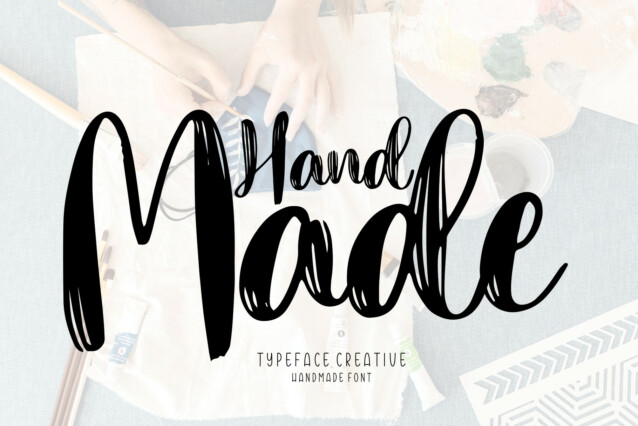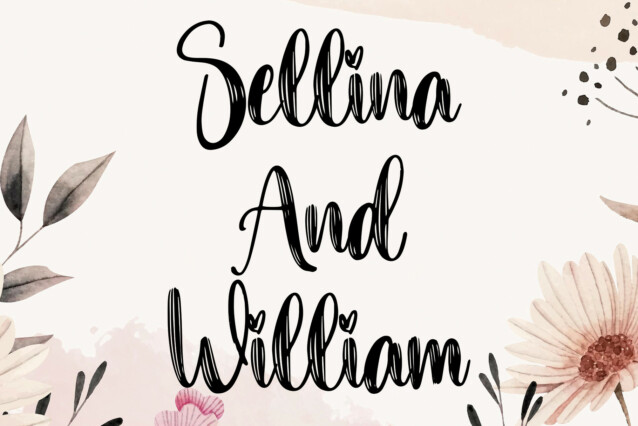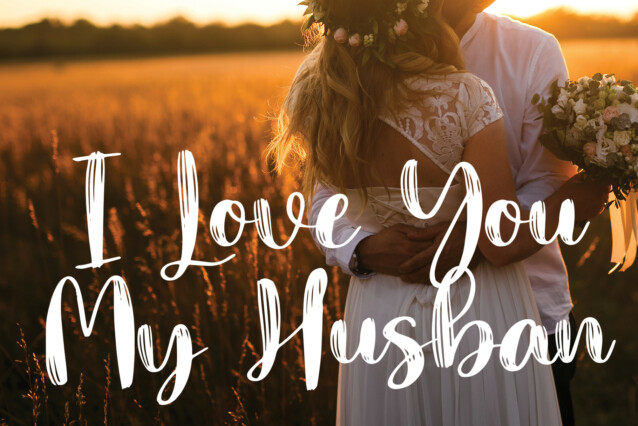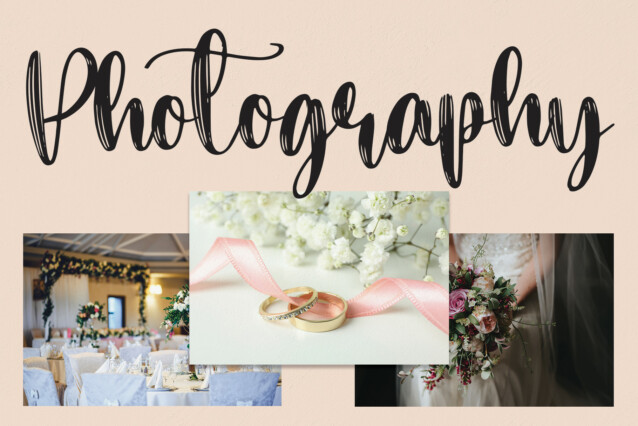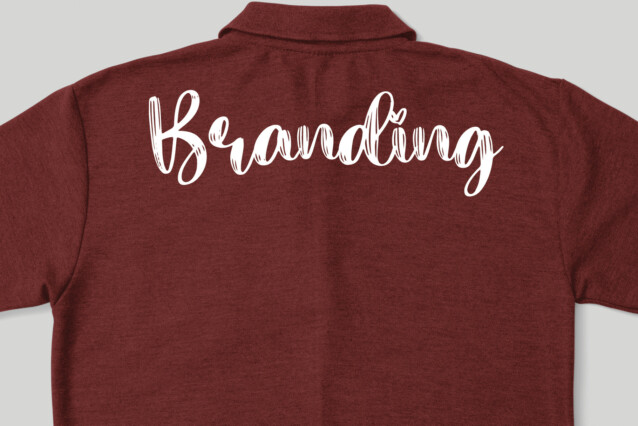
Hand Made Script Font
Hand Made Script Font is a cool and modern handwritten brush font crafted to give your headlines and logotype projects a stylish touch. This font reads as strong, confident, and dynamic and can add tons of nostalgic character to your designs.